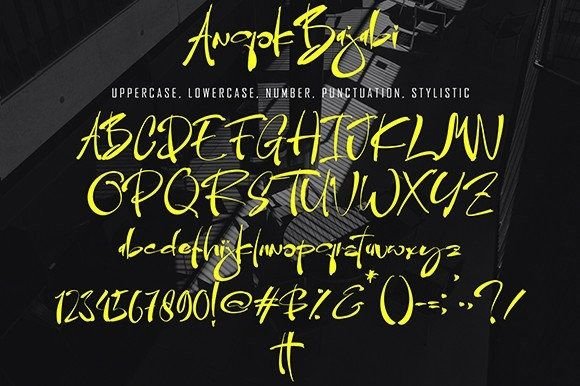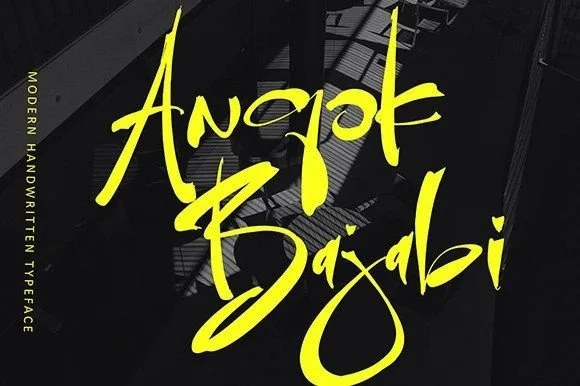
Anqok Bajabi Font
**Anqok Bajabi** is a trendy and cool handwritten font that introduces a fresh style to the typographic landscape. With its unique and modern design, this font is well-suited for a diverse range of creative projects. Whether you’re working on quotes, logos, blogs, headers, posters, branding materials, letters, invitations, or stationery, Anqok Bajabi adds a touch of contemporary flair to your designs.
One of the standout features of Anqok Bajabi is its cool and edgy vibe. The font’s bold strokes and distinctive letterforms create a sense of confidence and style, making it a great choice for projects that aim to convey a modern and fashionable image. Anqok Bajabi is perfect for brands, blogs, or products targeting a young and trend-savvy audience, adding a hip and energetic atmosphere to your designs.
Anqok Bajabi’s versatility shines in various design contexts. In quotes and social media posts, the font’s cool and handwritten appearance adds a personal and authentic touch to your messages. It enhances the visual impact of motivational quotes, inspirational phrases, or casual messages, making your content more relatable and engaging.
For logos and branding materials, Anqok Bajabi can create a memorable and contemporary visual identity for your brand. Its unique style helps your brand stand out in a competitive market, leaving a lasting impression on your audience. The font’s bold and modern design makes it suitable for fashion labels, tech startups, creative agencies, or any brand looking to convey a sense of innovation and coolness.
Anqok Bajabi’s new style makes it a perfect choice for headers, posters, and invitations. Its eye-catching appearance grabs attention, making it ideal for promotional materials, event announcements, or party invitations. The font’s playful and trendy vibe adds excitement and energy to your designs, making them visually appealing and dynamic.
In summary, Anqok Bajabi is a cool and trendy handwritten font that injects a fresh and contemporary style into your projects. Its modern design, combined with its versatility, makes it a valuable asset for a wide range of creative applications. By incorporating Anqok Bajabi into your designs, you can achieve a stylish and youthful look, ensuring your projects resonate with a modern and fashion-forward audience.